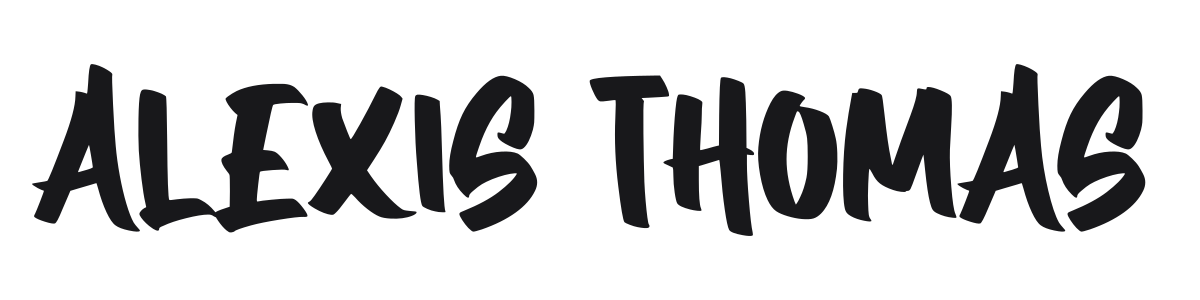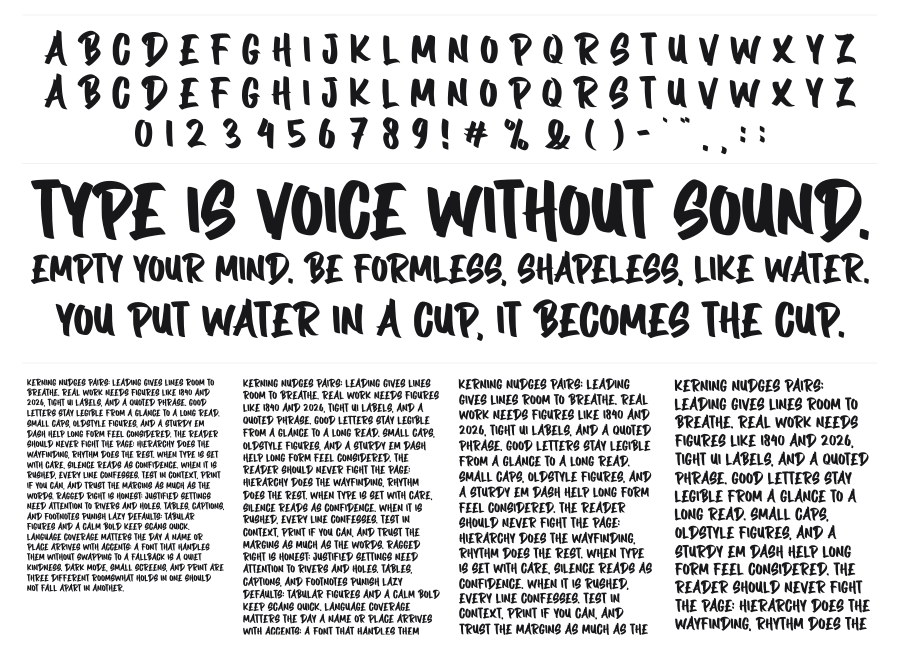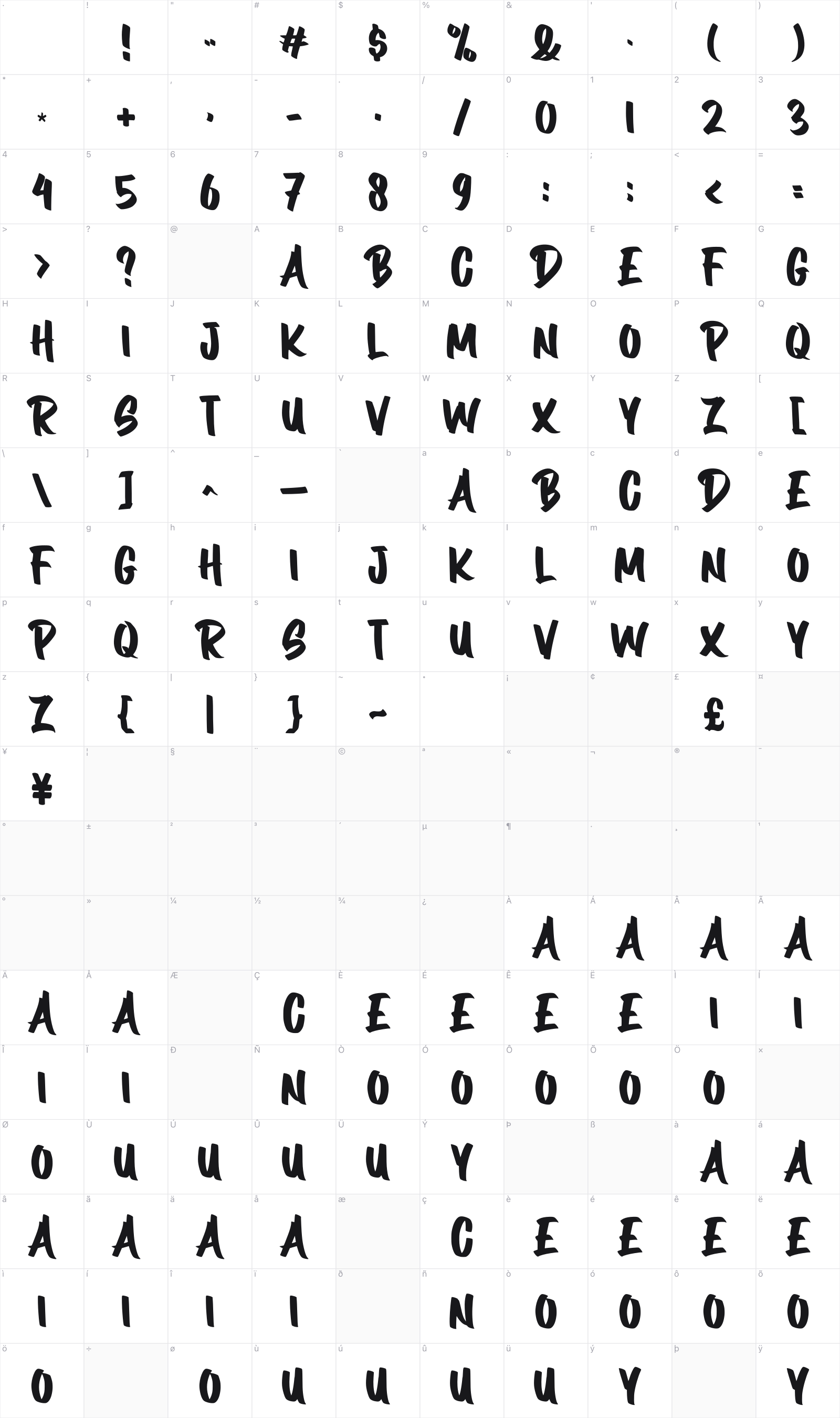
Alexis Thomas
Alexis Thomas is a bold all-caps brush font with rough, hand-painted strokes and intentional irregularity. Each character tilts and bounces slightly, as if written fast with a thick brush, keeping the energy loose and alive. Strong in posters, apparel graphics, and anywhere a design needs a human, handcrafted punch.